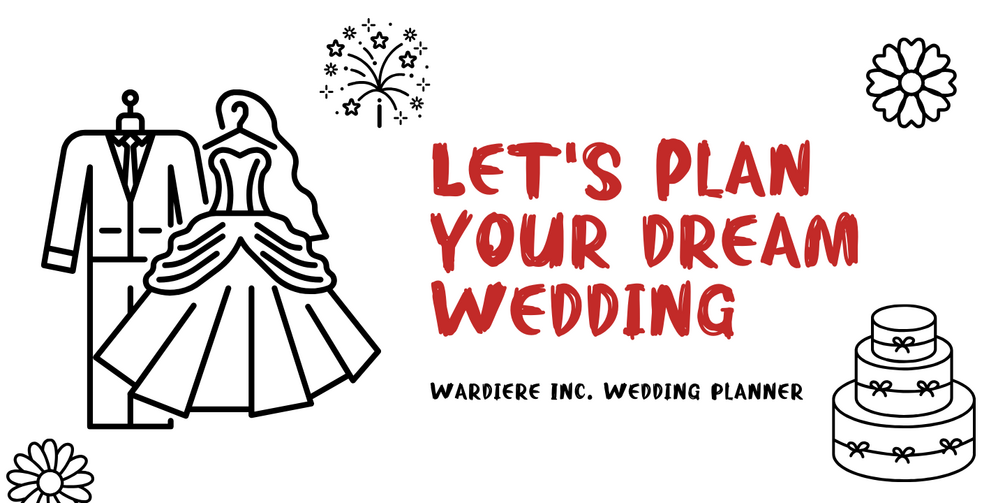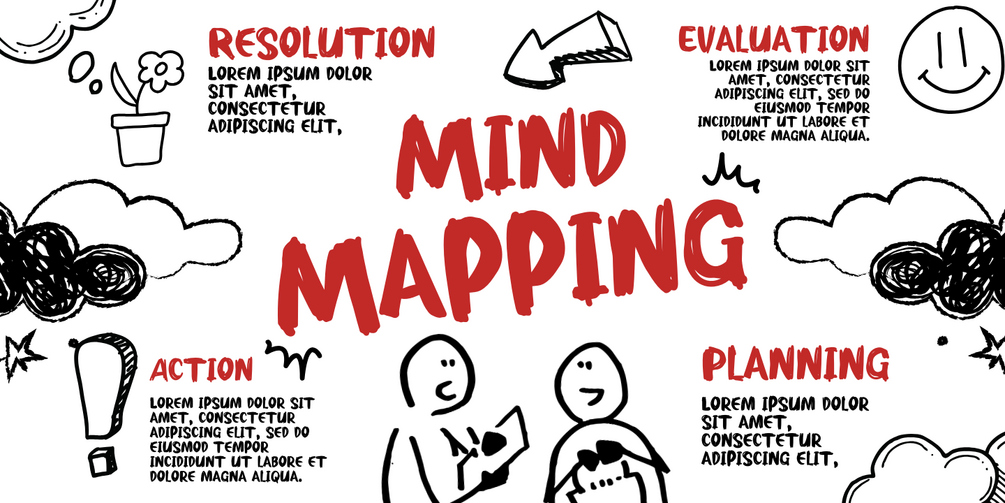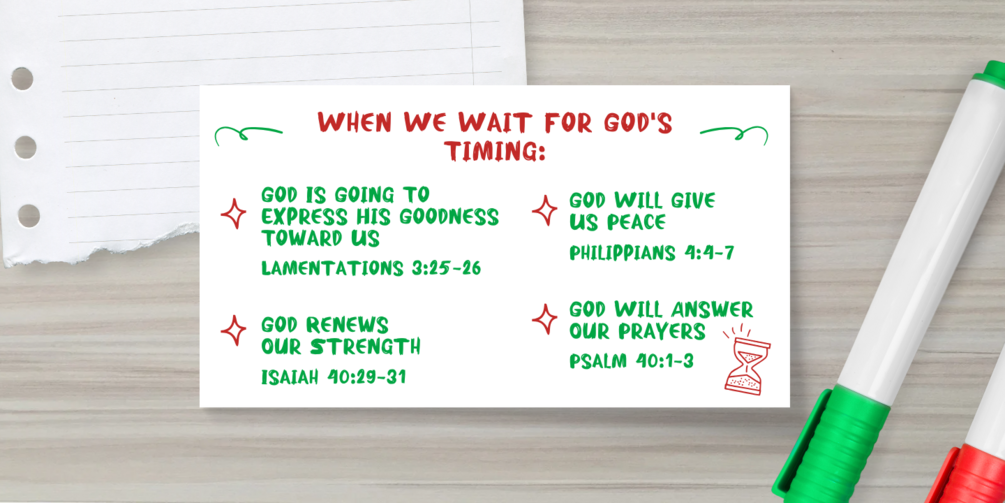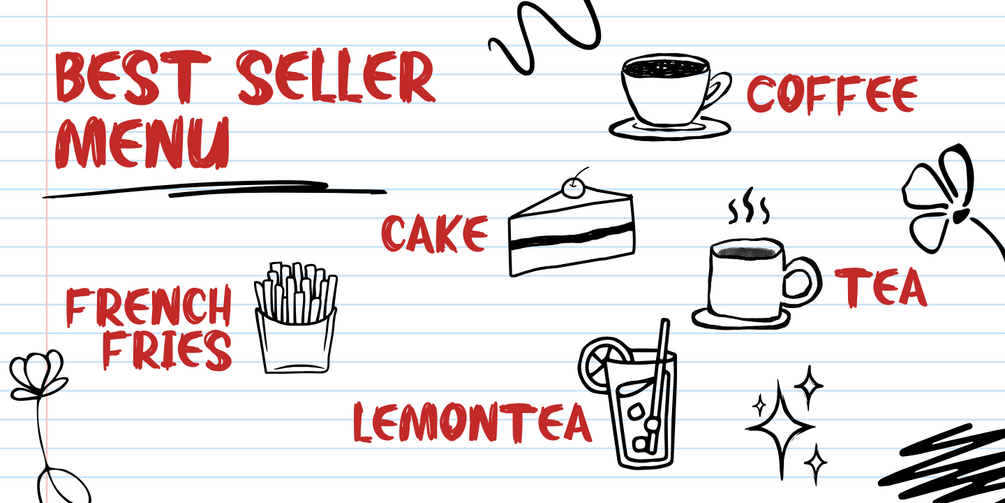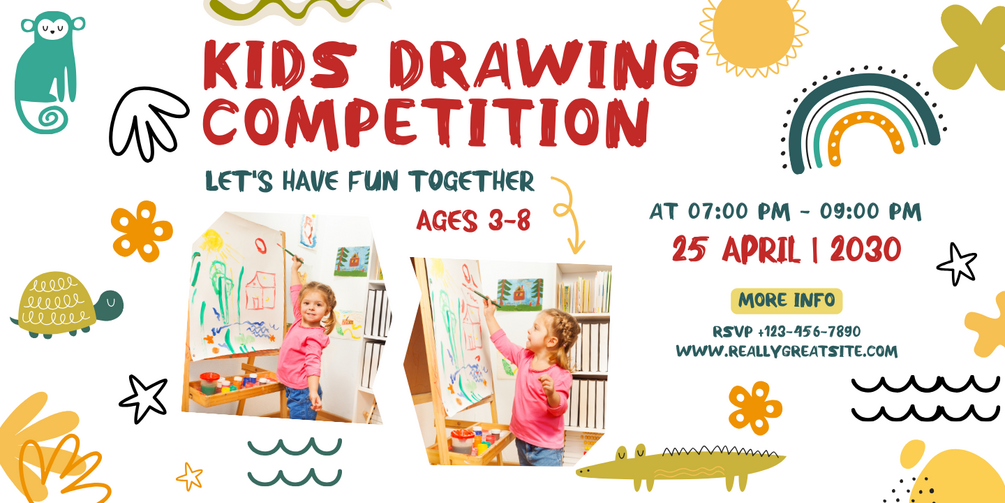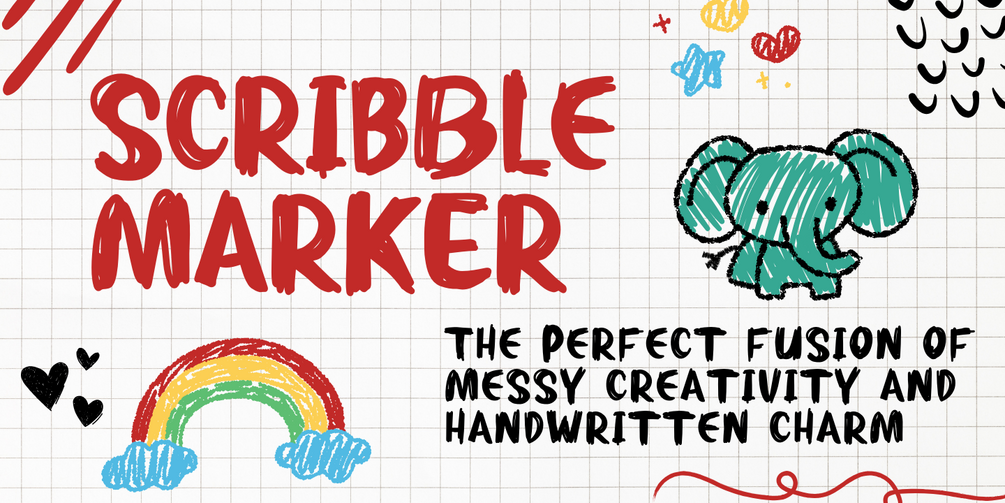
Scribble Marker - Marker Font
Looking for a font that brings personality and warmth to your designs?
Scribble Marker is a natural, playful handwritten font that captures the charm and spontaneity of marker strokes. With its authentic, free-flowing style, Scribble Marker feels as if each letter was drawn by hand, adding a genuine and inviting touch to any creative project.
Perfect for posters, social media content, branding, and more, Scribble Marker adds a personal flair to your designs, making your message stand out in a fun, approachable way.
✨ Natural, playful handwritten strokes with a spontaneous feel
✨ Ideal for posters, social media, branding, and personal projects
✨ Adds warmth, charm, and personality to your designs
🎨 Let Scribble Marker turn your words into an artful expression of personality and fun!